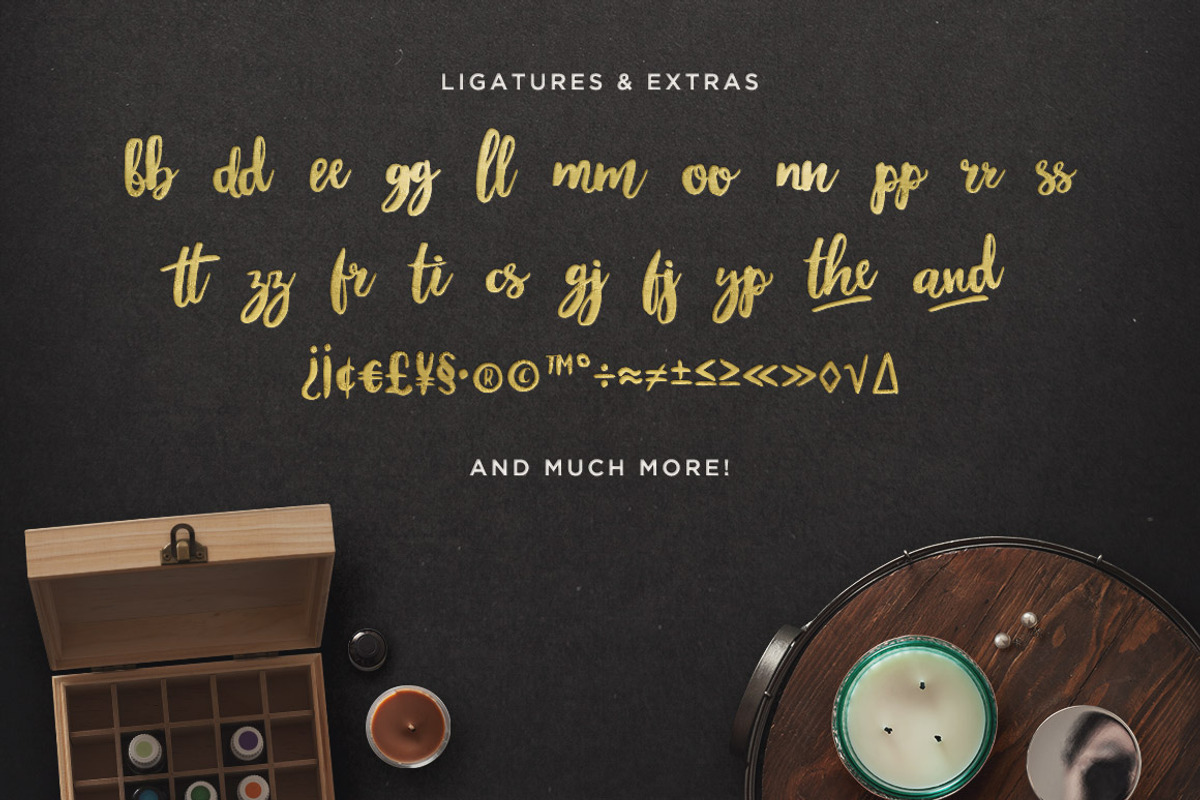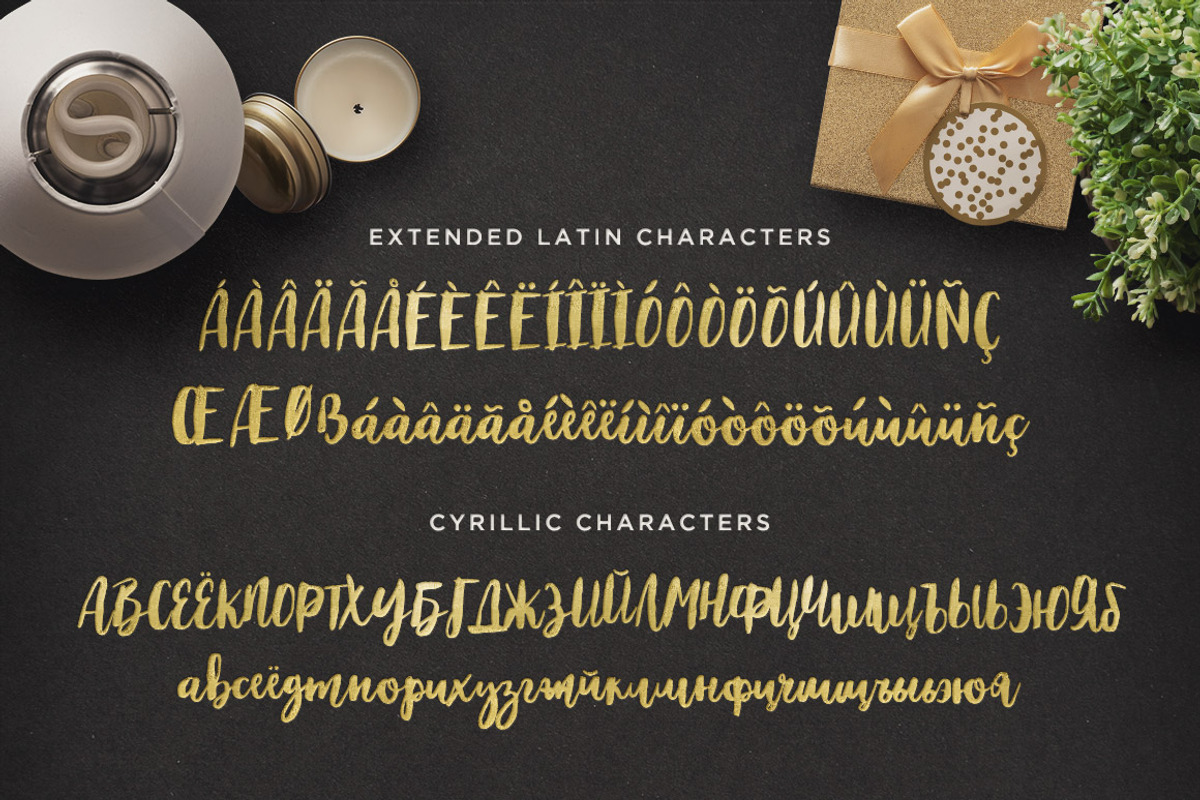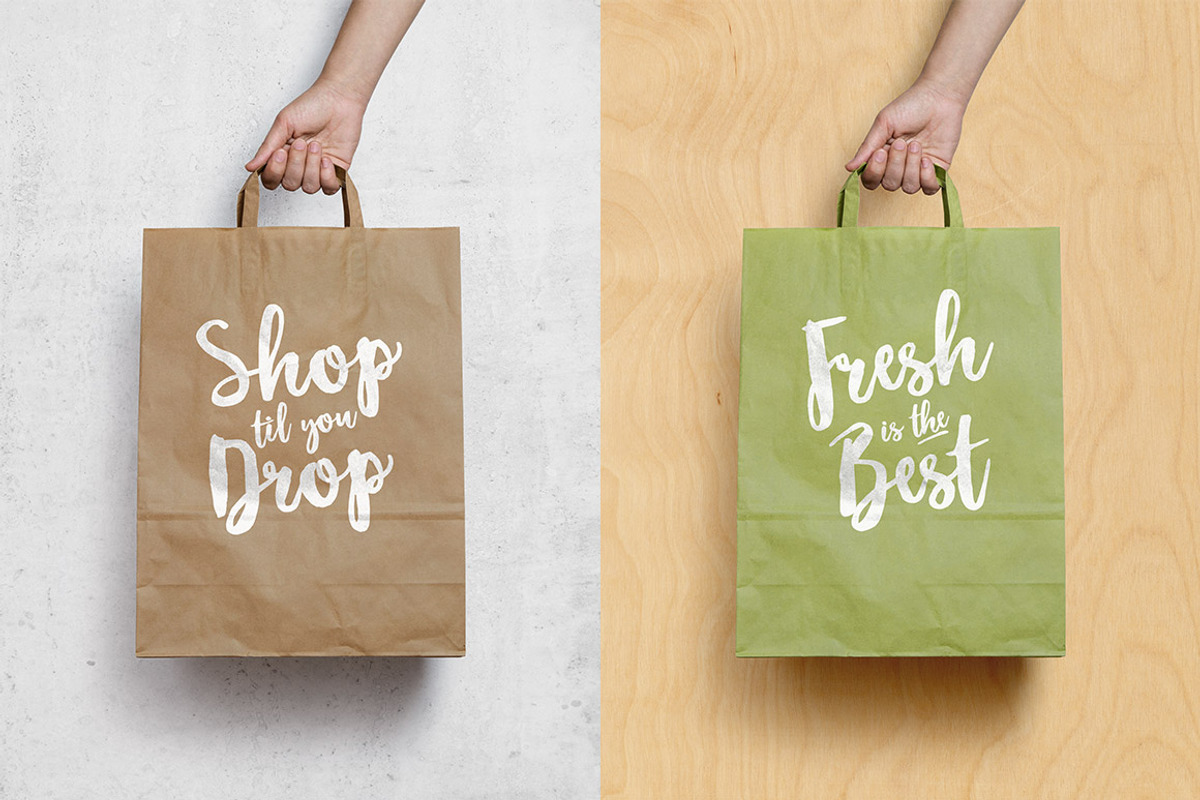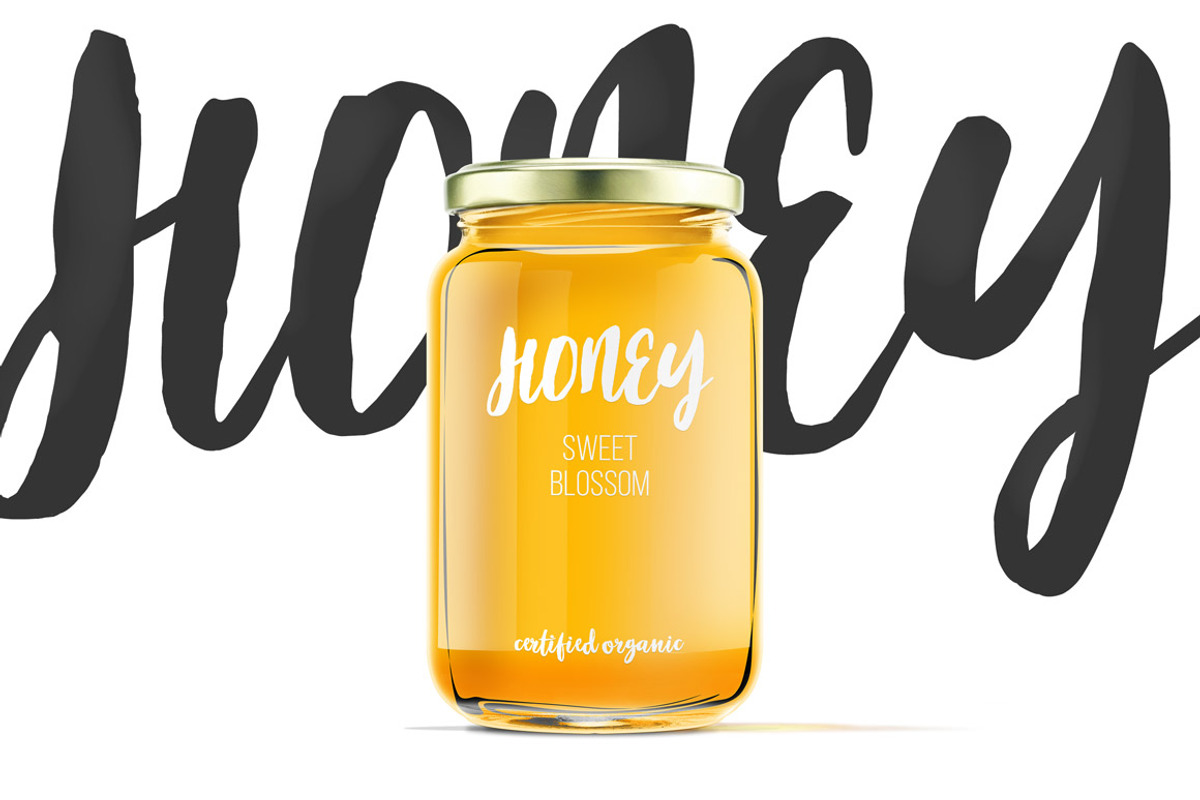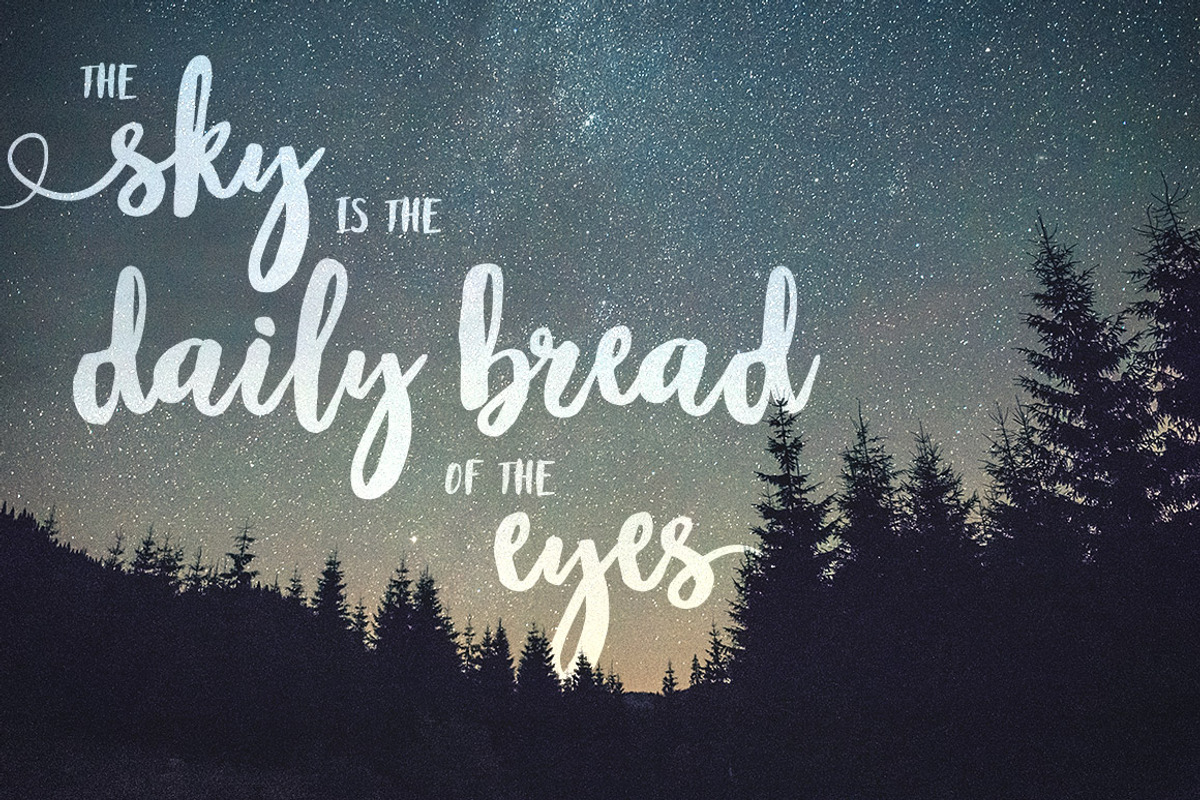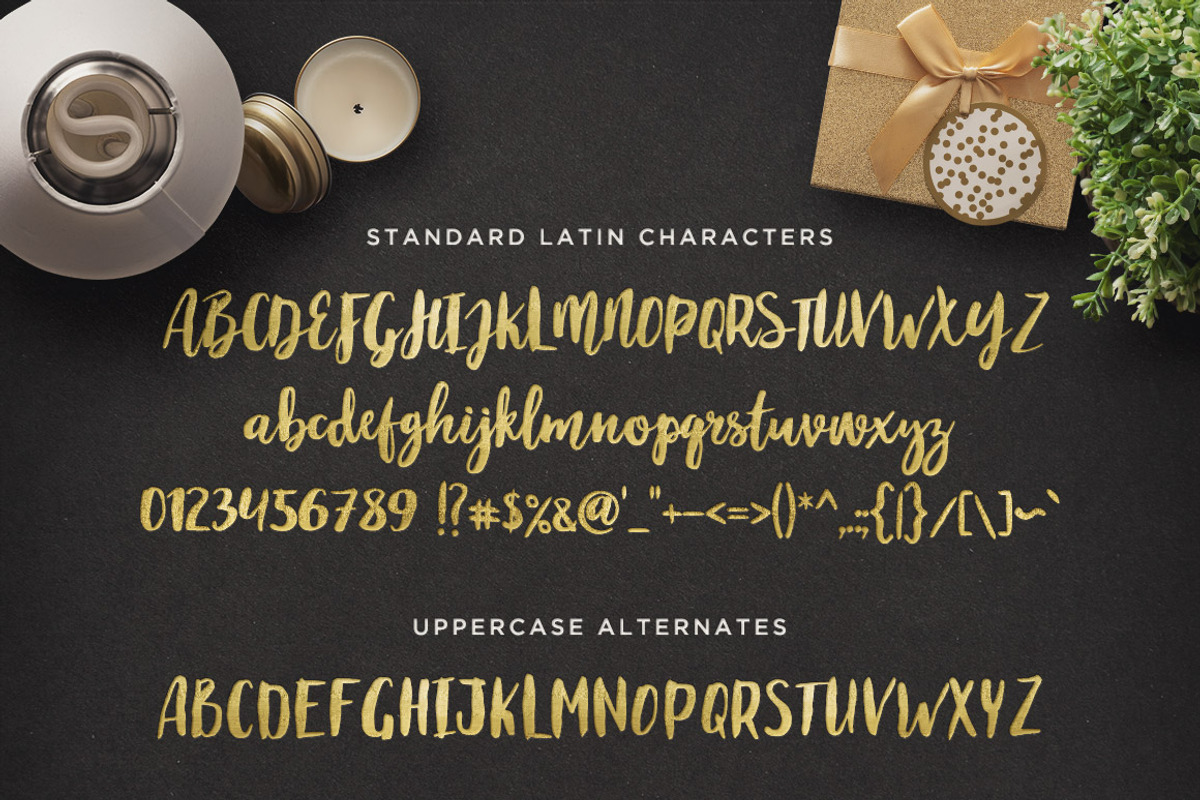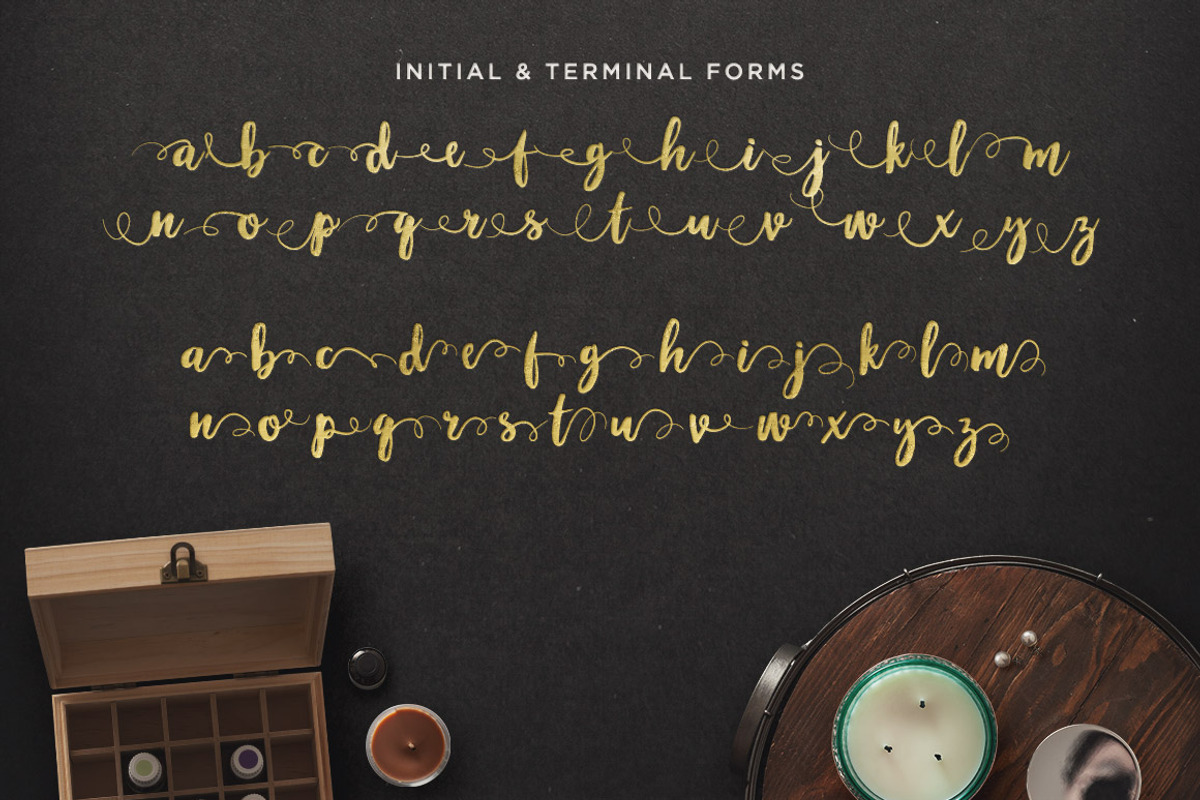
Maloishe Brush Script Font
Maloishe Brush Script Font by Design Panoply is a font selected for branding, posters, packaging, typography.
- On the surface, Maloishe looks like a standard font, but it includes more than typical western glyphs.
- You get alternate characters for the the entire uppercase alphabet, initial and terminal forms for decorative beginnings and ends, stylistic
Why Maloishe Brush Script Font is worth a look
Maloishe Brush Script Font by Design Panoply fits naturally into Branding, posters, packaging, typography.